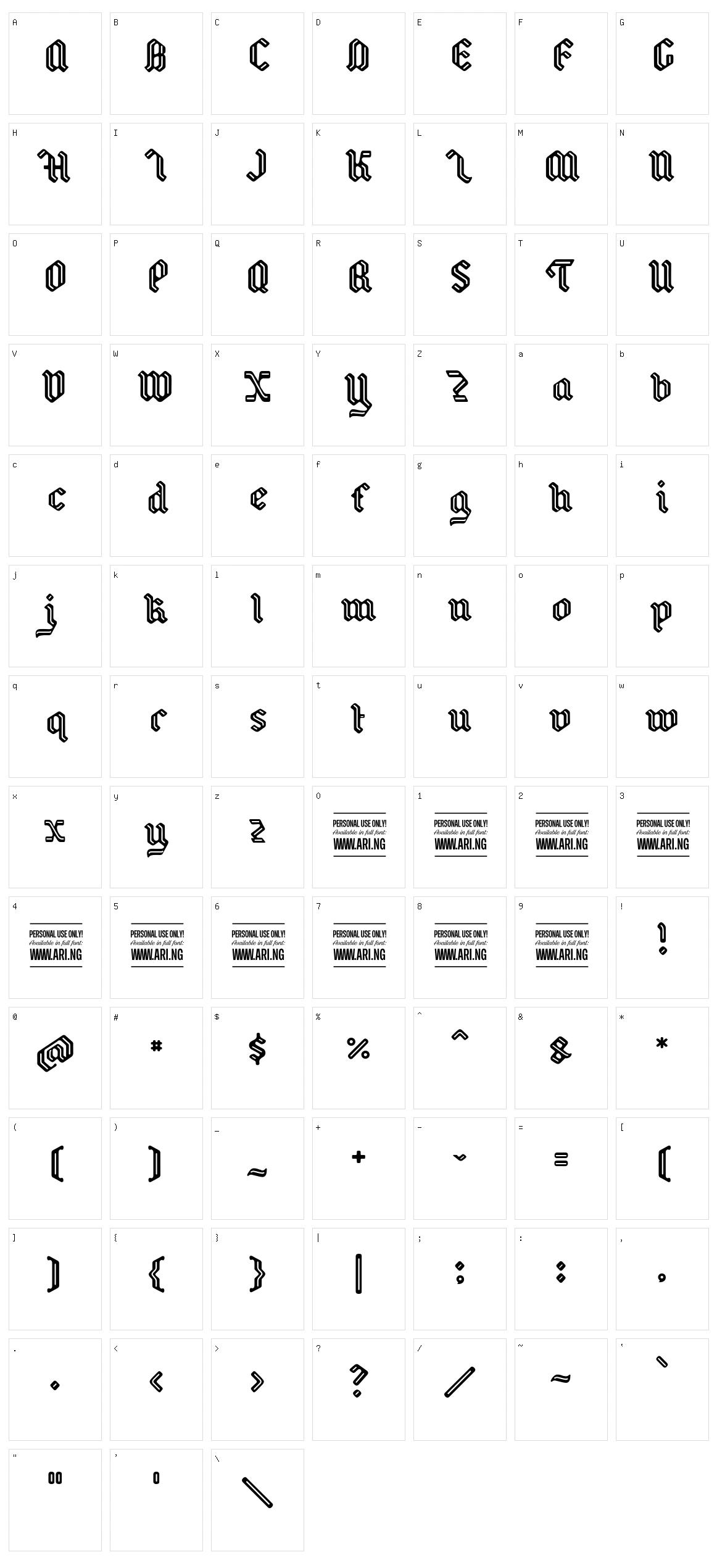
Backyard
Designed by: Mans Greback
Backyard is a blackletter type.
It's classic but rounded, which gives it a simple and clean appearance.
It comes in four varieties; the Regular style, the Black style and each of those styles as Italic.
Cooperatively designed by Måns Grebäck and Noah Kinard.